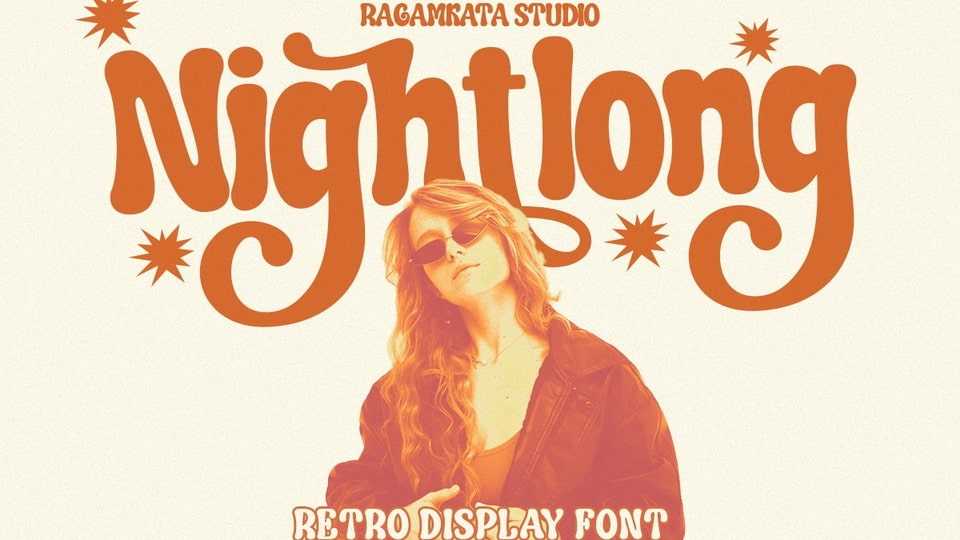
Download Nightlong font, a strong and bold sans serif typeface with a touch of vintage look and feel, perfectly made to be applied especially in logo, headline.